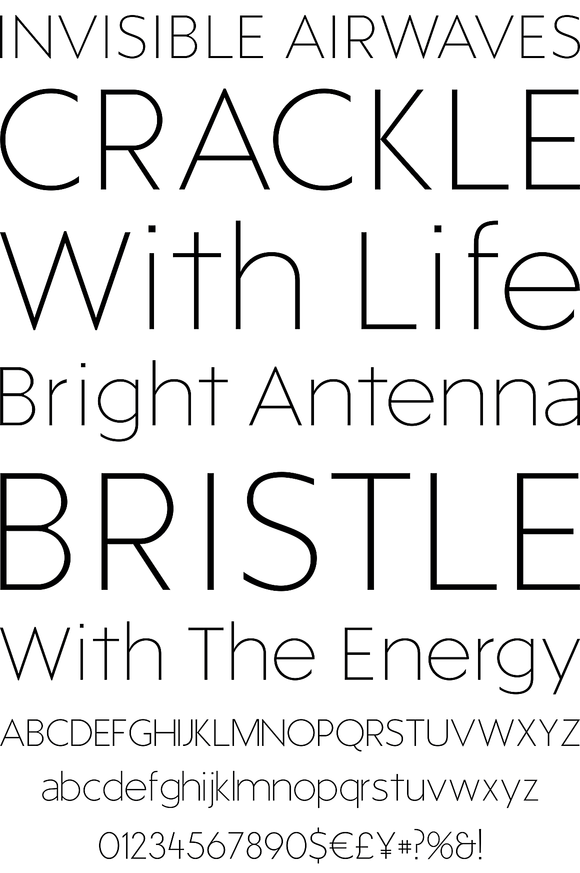
FR Hopper
FR Hopper is the biggest release of Faberfonts Foundry since its opening. The project started as a quest for cool and neutral thin sans capital forms and proportions more than a year ago. Till then lot of things have changed and have been added and the project have grown into a project as complex and prolonged as nothing else before here in the studio of Faberfonts.
FR Hopper is a sans based on geometric forms still having a friendly personality. It is inteneded for mid-lenght texts, captions, titles and almost any other occasinal use - posters, flyers and even for web sites.
FR Hopper comes in 7 weights, 12 styles with 836 glyphs - that means 10 032 glyphs ready to use for your projects - and many advanced OT - features such as small caps, discretionary ligatures, alternate characters, fractions, arrows, ornaments and more - in all styles. It supports Extended Latin-A and Latin-B character sets and more that 100 languages.
Italics are based on carefully slanted roman versions but come with many cursive characters drawn from the ground up. It gaves enought difference to the italics to stand out successfully from the romans - or attract by their own charm. All the styles are hand-kerned carefully.